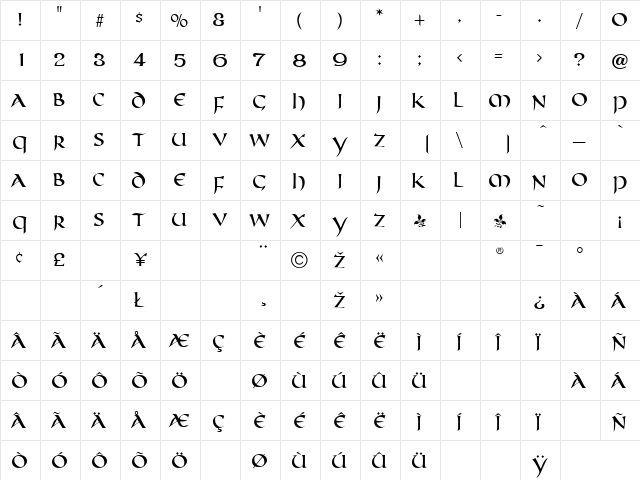
Accord Regular
Design Context for Accord Typeface
Accord is a composed and adaptable typeface that performs quietly and consistently across a wide range of design contexts.